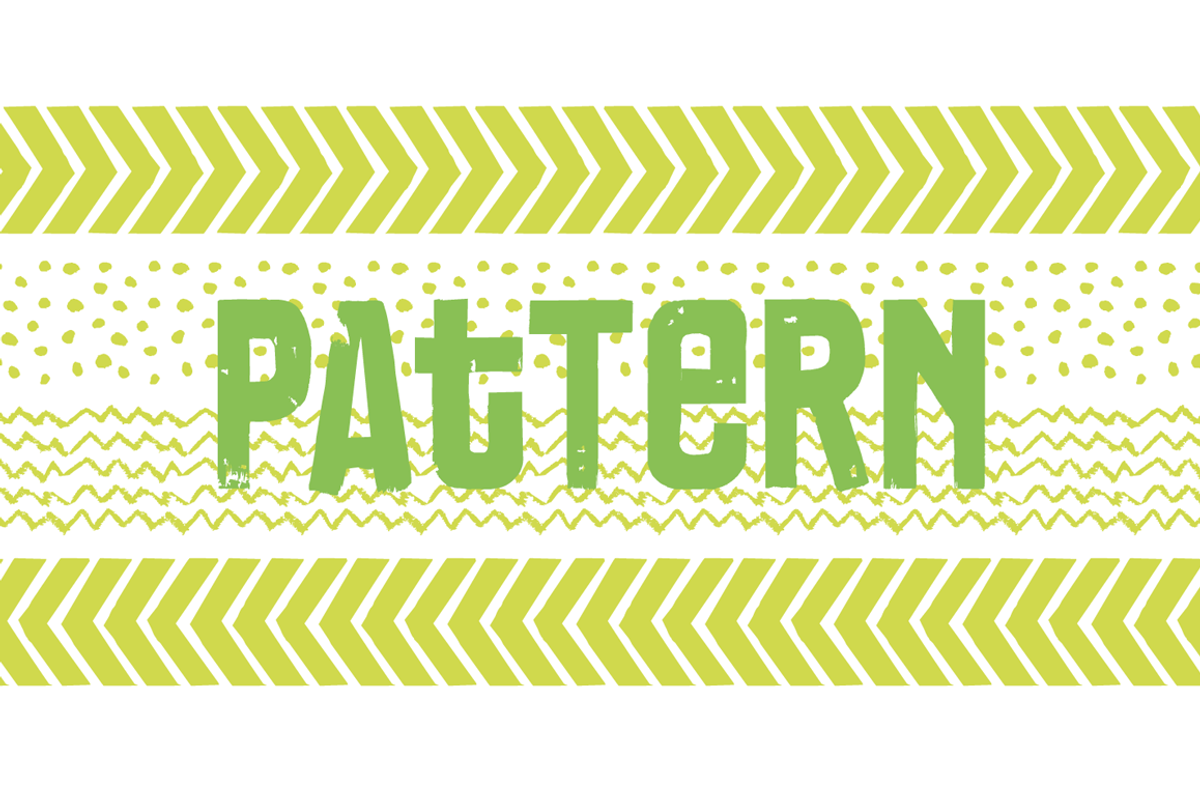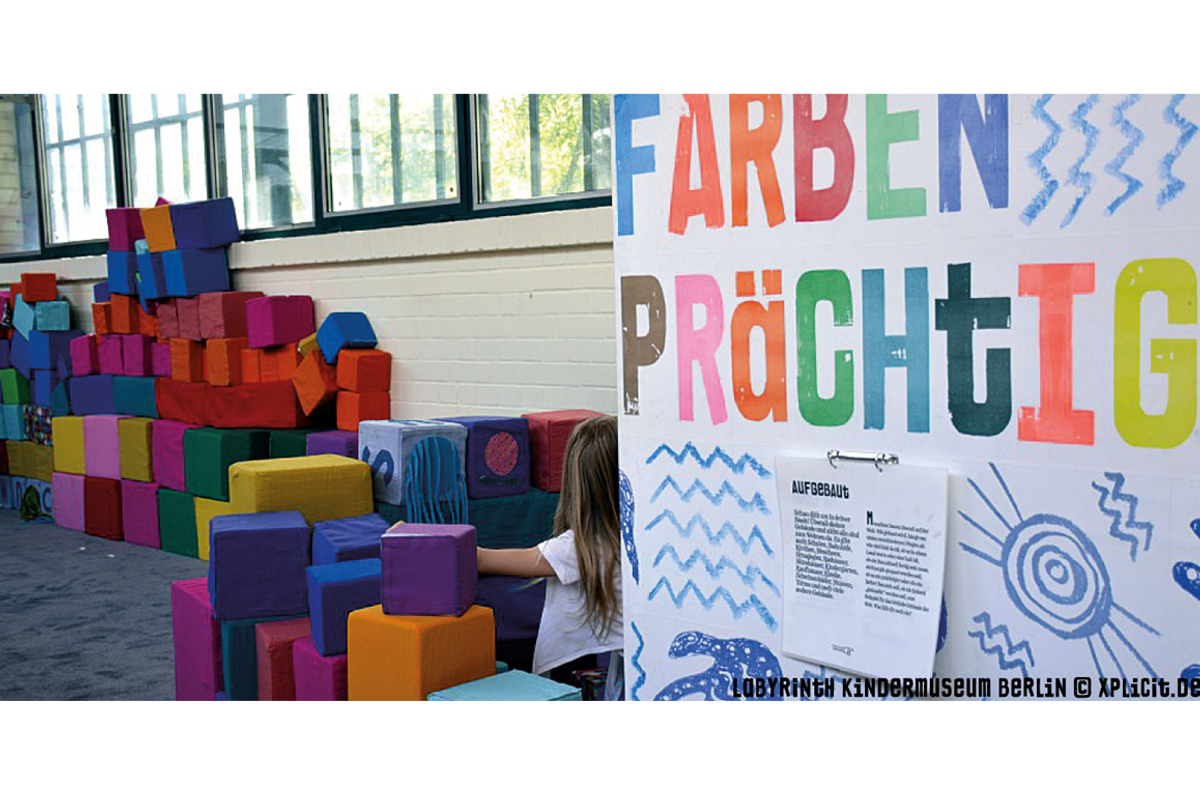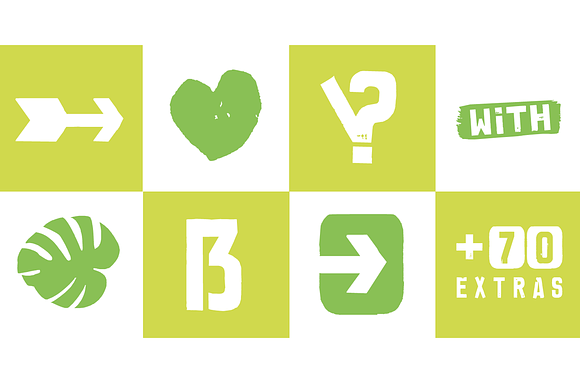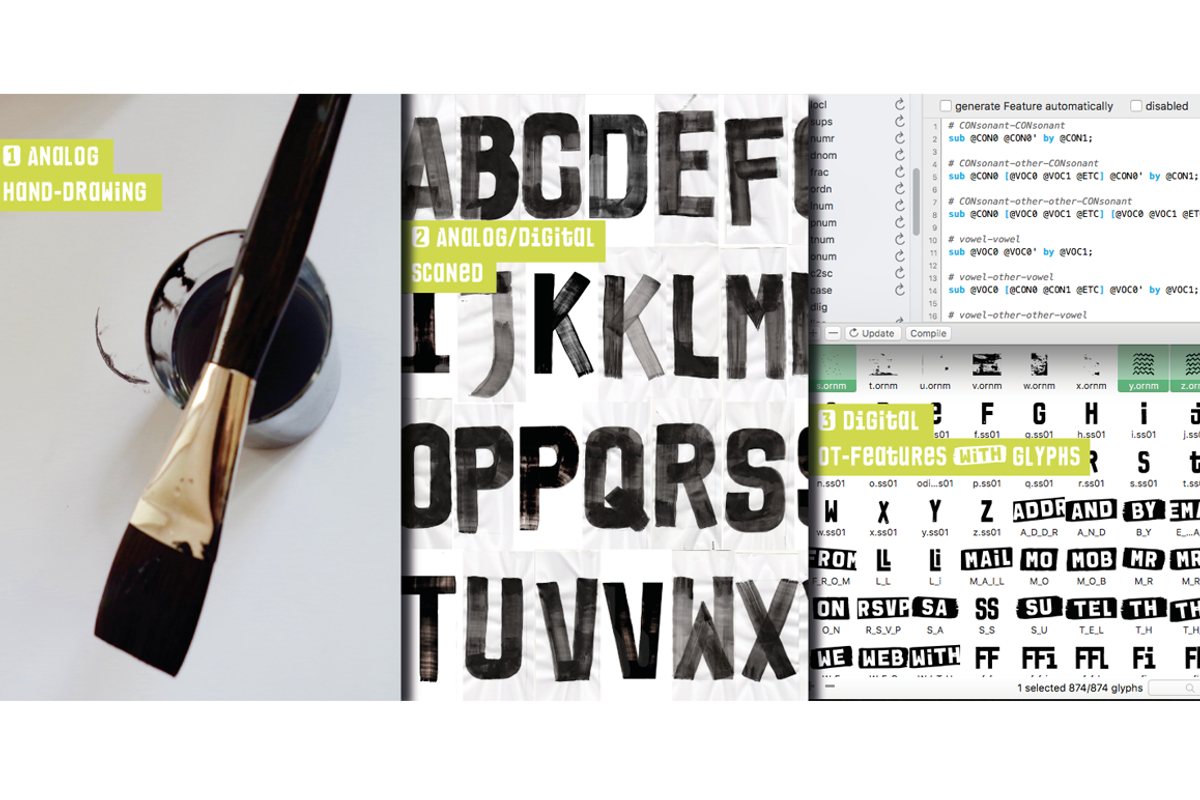
Brush Poster Grotesk Font + Extras
The typeface Brush Poster Grotesk is designed in 2017 for the children exhibition 1,2,3 Kultummel from Labyrinth Kindermuseum Berlin by xplicit, Berlin (Annette Wüsthoff, Alexander Branczyk, Mascha Wansart (illustrations)). Manuel Viergutz extended the font with some further glyphs & extras. The rough sans serif display typeface is created analogous by hand and brush.
875 glyphs incl. 150+ decorative extras like arrows, dingbats, emojis, symbols, geometric shapes, catchwords, decorative ligatures (type the word LOVE for ❤ or SMILE for ☺ as OpenType-Feature dlig) and stylistic alternates (3+ stylistic sets). For use in logos, magazines, posters, advertisement plus as webfont for decorative headlines. The font works best for display size.
■ Font Name: Brush Poster Grotesk
■ Font Weights: Regular + Misprint + EXTRAS (Illustration) + DEMO (with reduced glyph-set)
■ Font Category: Display for headline size
■ Glyph Set: 875 glyphs
■ Specials: 150+ decorative extras like arrows, dingbats, emojis, symbols, geometric shapes, catchwords, decorative ligatures (type the word “LOVE” for ❤ or “SMILE” for ☺ as OpenType-Feature dlig ) and stylistic alternates (3+ stylistic sets), German Capital Eszett
■ Type Designer: Annette Wüsthoff, Manuel Viergutz, Alexander Branczyk, Mascha Wansart (Illustration)